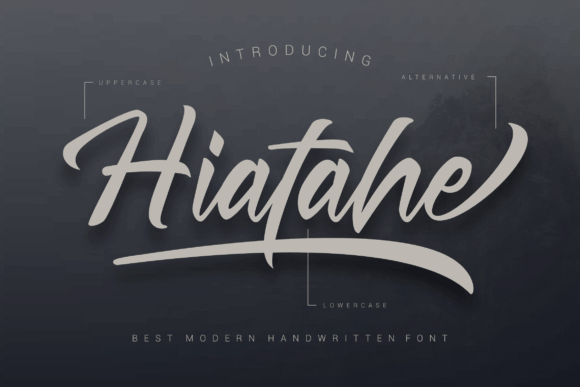
Hiatahe Font
Hiatahe is an authentic and modern handwritten font that brings a contemporary and genuine vibe to your creative projects. Ideal for branding, logos, T-shirt printing, esports, and various applications, this font is a versatile addition to your font library, standing out in a wide range of contexts.
The authenticity of Hiatahe’s handwritten style adds a personal and unique touch to your text, making it particularly well-suited for branding and logo designs that aim to convey a sense of individuality. The modern design of the font ensures that it aligns with current design trends, making it a suitable choice for a variety of applications.
Whether you’re creating T-shirts with a bold statement or designing esports graphics that demand a distinctive font, Hiatahe is crafted to make an impact. Its versatility allows it to adapt seamlessly to different contexts, ensuring that it remains outstanding in various design scenarios.
Adding Hiatahe to your font library is not just about having a new typeface; it’s about having a design asset that enhances your creative endeavors. Its modern and authentic characteristics make it a reliable choice for a range of projects that require a contemporary and personalized touch.
In summary, Hiatahe is more than just a font; it’s a design tool that brings authenticity and modernity to your branding, logos, T-shirts, and more. Let Hiatahe be the font that stands out and makes an impact in a wide range of creative contexts.